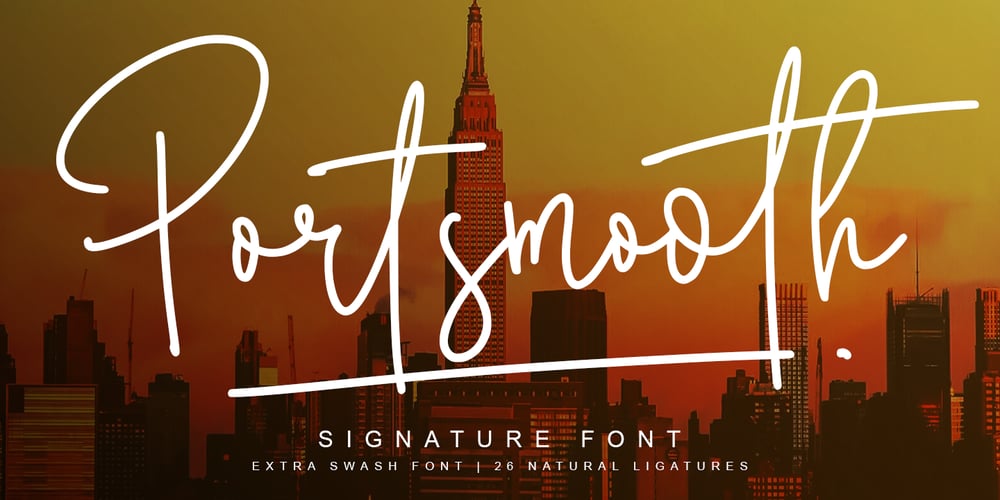
Portsmooth Font Family was designed by Abo Daniel and published by Abo Daniel. Portsmooth contains 2 styles and family package options. PORTSMOOTH – signature font-it is great for branding, packaging, card, logo, tote bag design, cup drink design, banner, and anything project with an elegant touch but still looks crafty.I created 38 ligatures to make this font look so natural.This font is perfectly combined with swashFeatures:- Uppercase- Lowercase- Numeral- Multilingual- 38 Ligatures- swash- PUA encodedI hope you love it…regards,Abo Daniel Studio